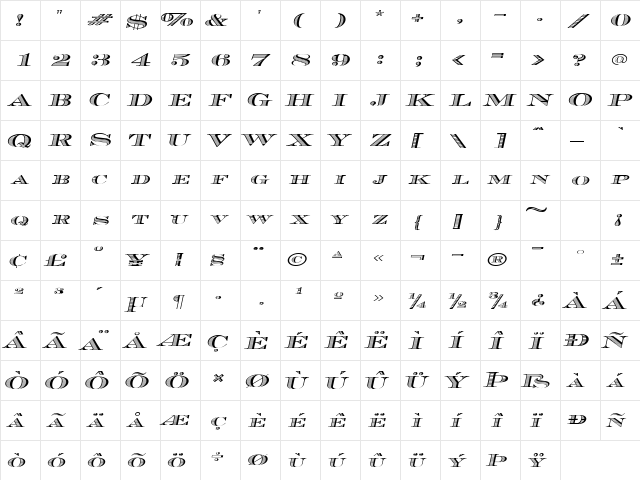
CashExtended Italic
Design Context for CashExtended Typeface
CashExtended is a composed and adaptable typeface that performs quietly and consistently across a wide range of design contexts. The slanted form adds forward momentum and visual energy.